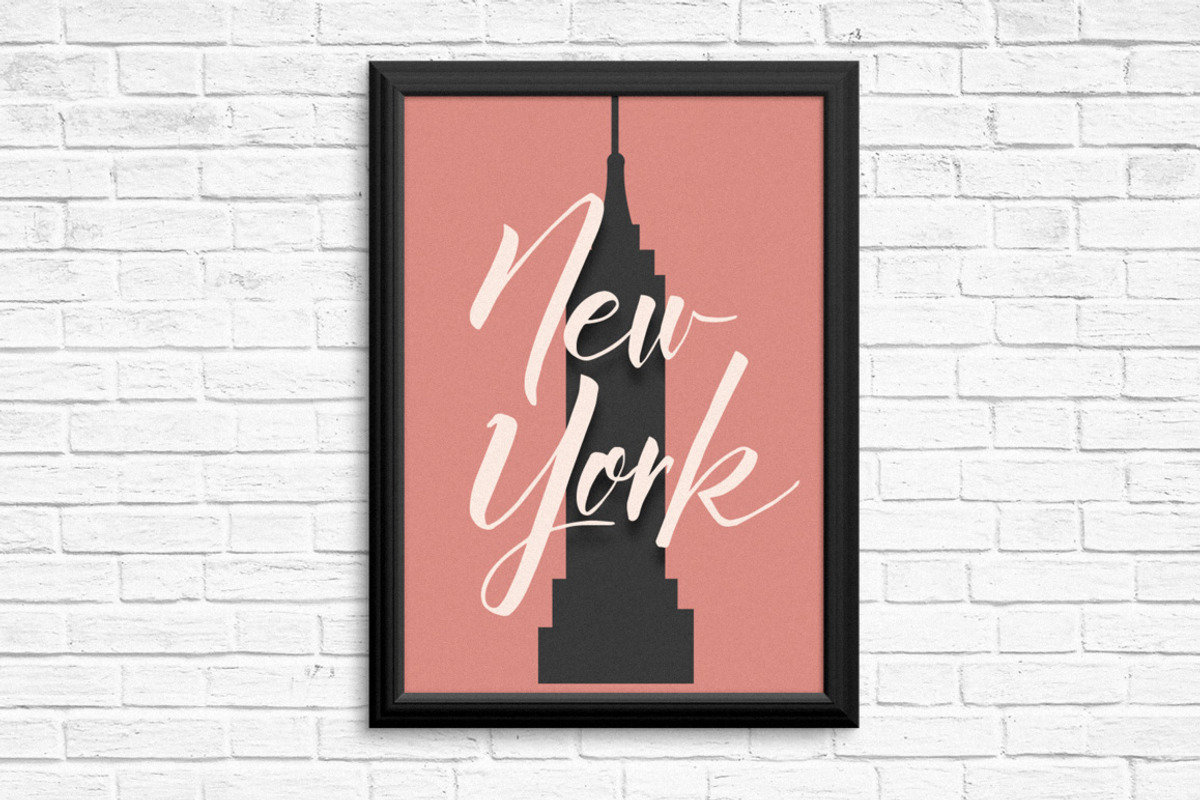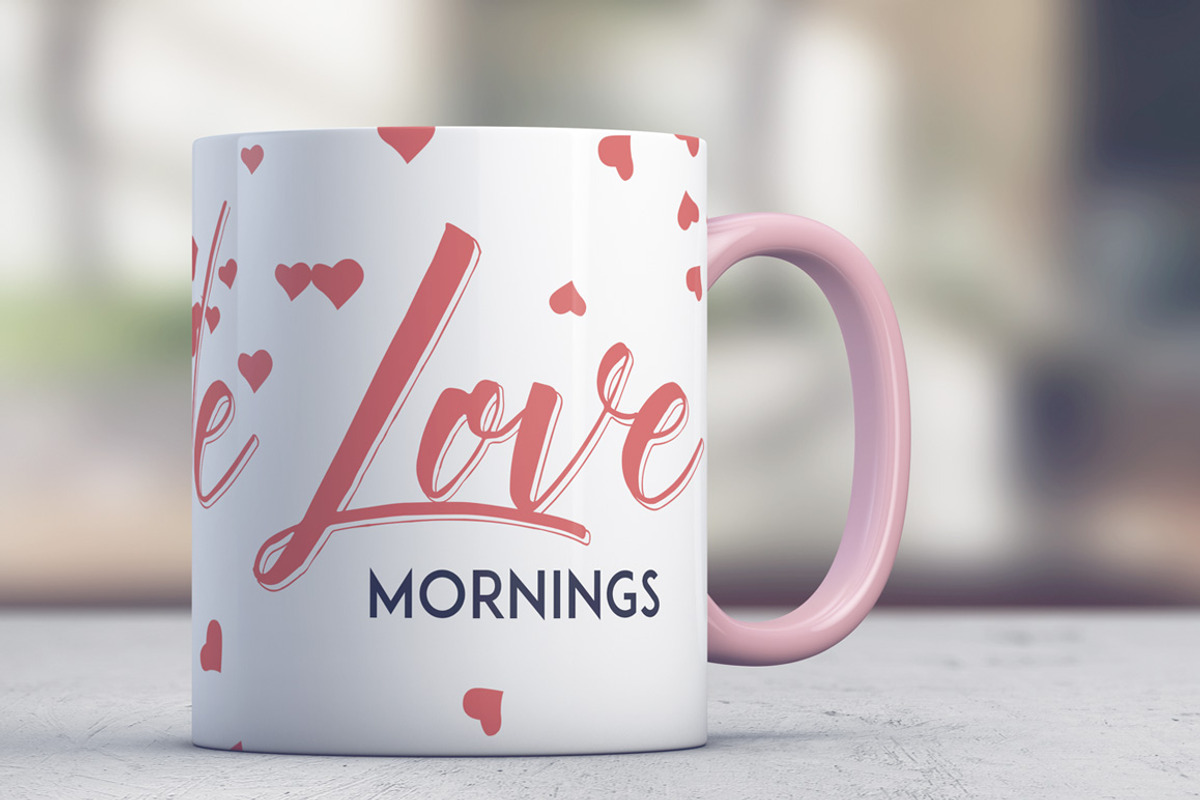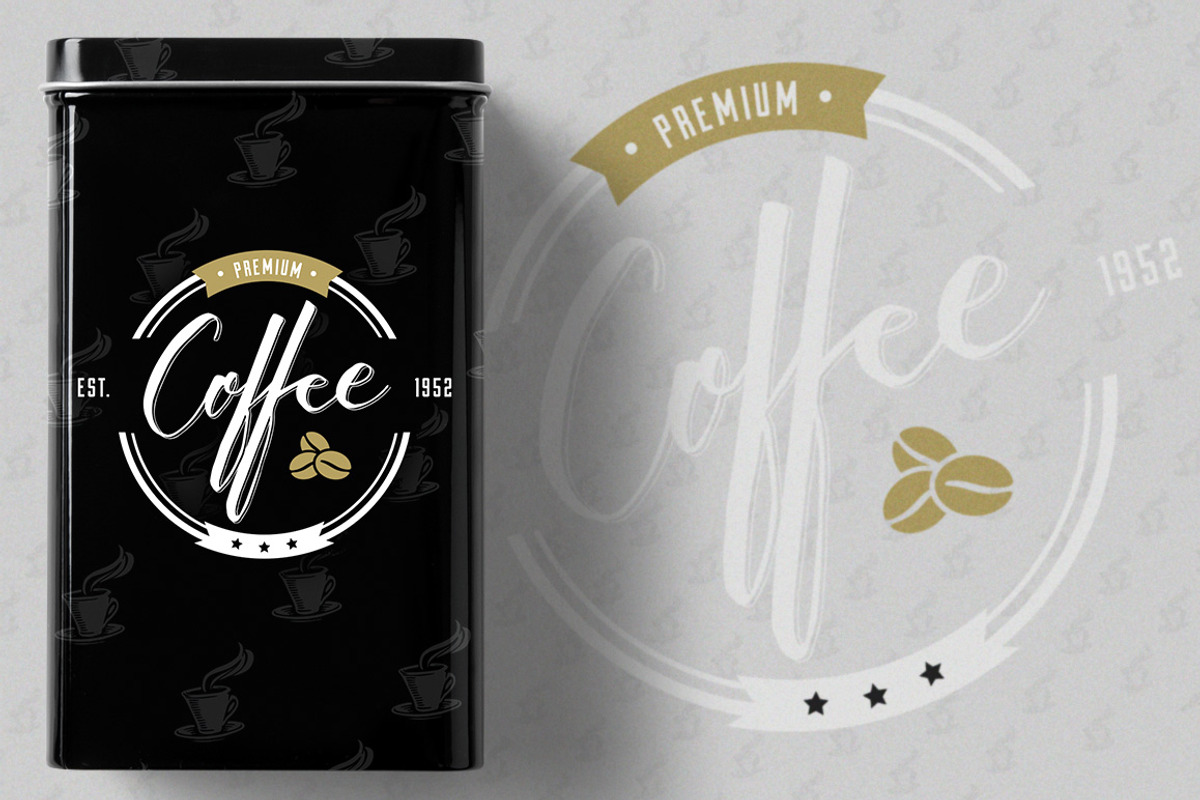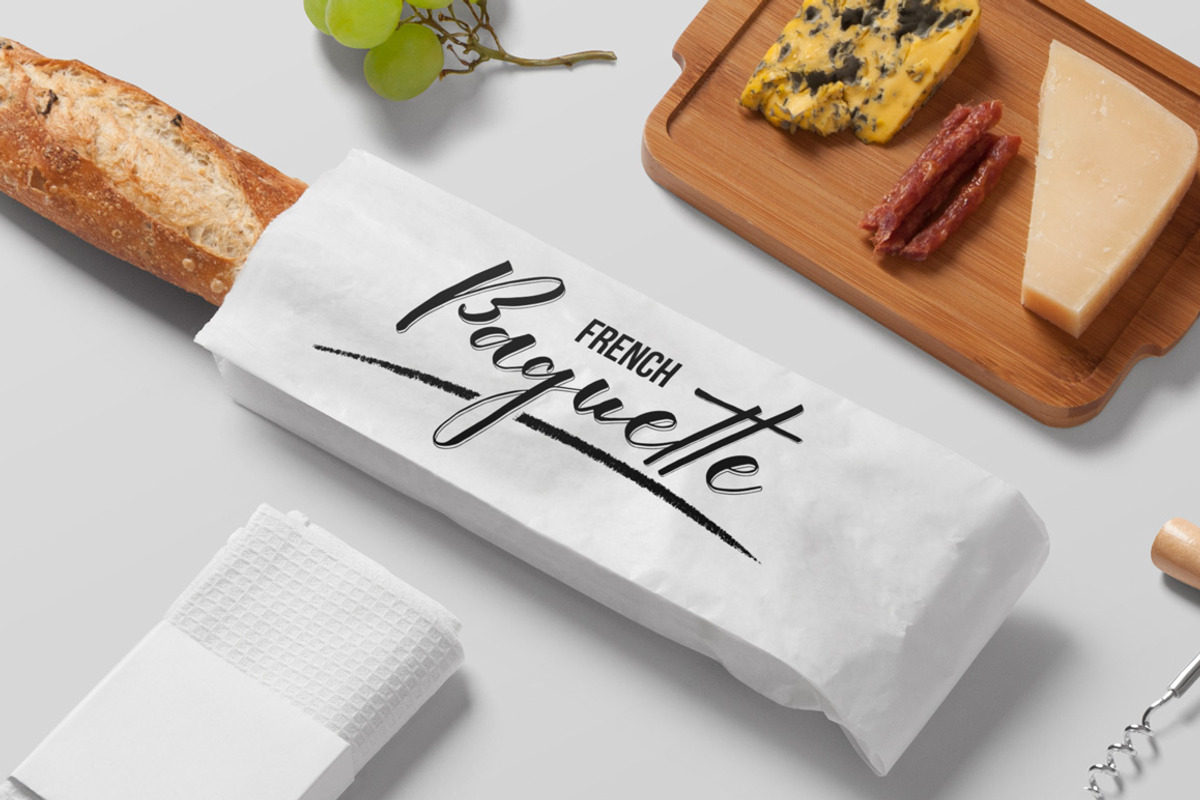
King Size Font
King Size Font by Ivan Rosenberg is a font selected for branding, posters, packaging, typography.
- This font comes with a complete set of lowercase and uppercase letters, numbers, alternates, ligatures and multilingual support.
- King Size is a hand lettered font with multilingual support.
- King Size Dots
- King Size Script
- King Size Shadow
King Size Font by Ivan Rosenberg fits naturally into Branding, posters, packaging, typography.